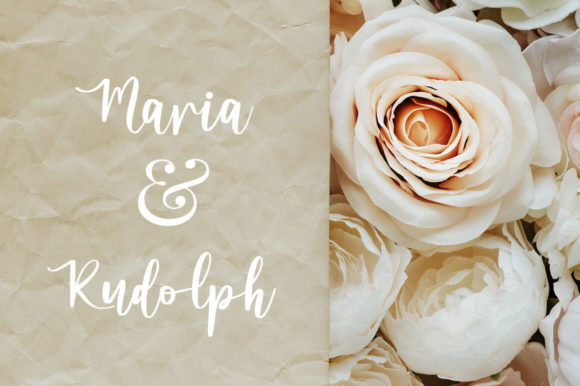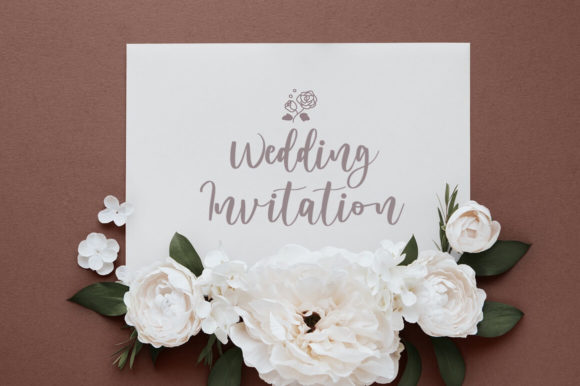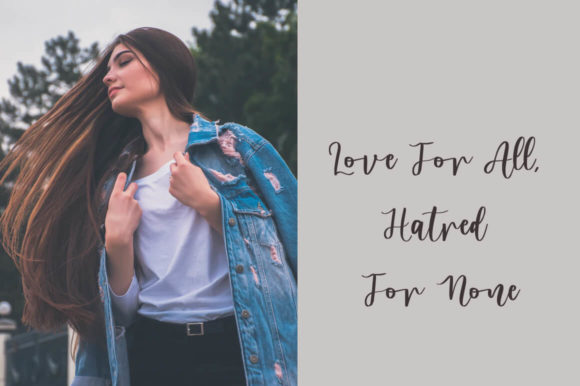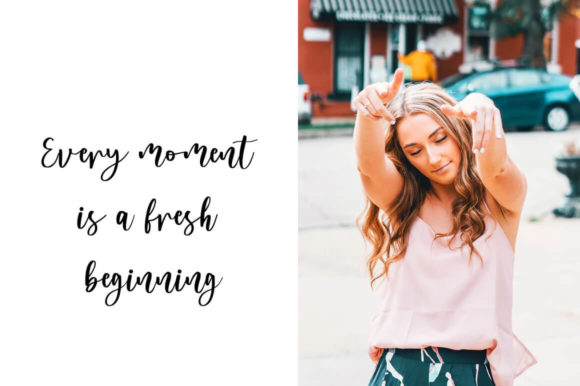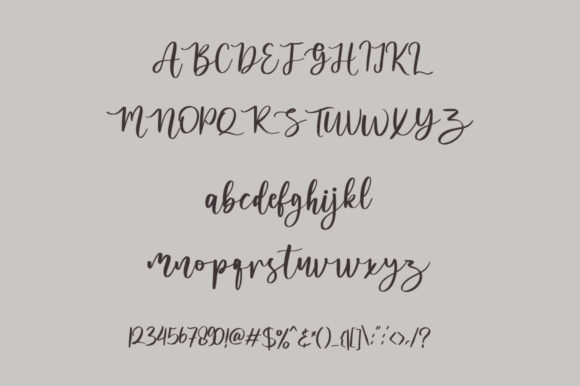
Introduction to Melanies Font
Have you ever sat at your desk, staring blankly at a blank canvas, trying to conjure up the perfect design for your next creative project? You know, that moment when the perfect font can make all the difference between a good design and a great one? That’s exactly what happened to me the last time I was working on a project, and that’s when I discovered Melanies Font – a beautiful, flowing handwritten font that instantly brought my design to life.
With its elegant, high-quality design, Melanies Font is a valuable resource for any designer looking to add a touch of sophistication to their work. Whether you’re working on a personal project or a client-based design, this font is sure to elevate your creations and make them stand out from the crowd.
Key Features of Melanies Font
- Designed with precision and attention to detail, resulting in a crisp and clear font at high resolutions (up to 300 DPI).
- Perfect for use in various design contexts, including digital art, print materials, and web design projects.
- Includes a comprehensive character set, covering a wide range of languages and special characters.
Honest Review: Melanies Font
As a designer, I’m always on the lookout for high-quality design resources to elevate my creative projects. Recently, I had the chance to work with Melanies Font, and I’m excited to share my thoughts.
- The font’s high quality is evident in its crisp lines and smooth typography.
- The font’s limited character set may not be suitable for projects requiring a wide range of characters.
- The font’s aesthetic may not appeal to designers seeking a more modern or minimalist look.
Overall, Melanies Font is a solid choice for designers seeking a high-quality, creative font for their projects. While it may have some limitations, its free download and transparent background make it a valuable resource for designers on a budget. With some creativity and experimentation, Melanies Font can be a great addition to any design portfolio.
To get the most out of Melanies Font, experiment with different font sizes and styles to achieve the desired design effect. This high-quality font can be used in a variety of creative projects, from branding to editorial design.
Melanies Font is ideal for use in creative projects such as logos, business cards, and brochures. Its unique style and transparent background make it a great addition to any design.